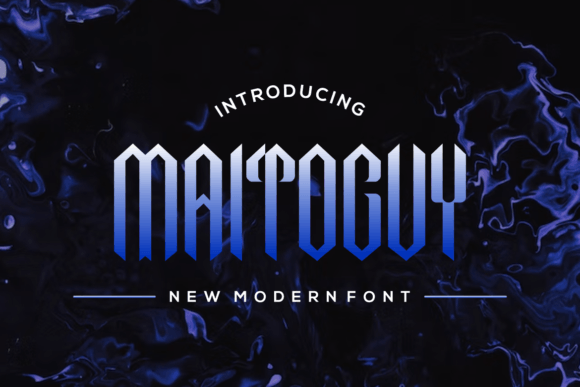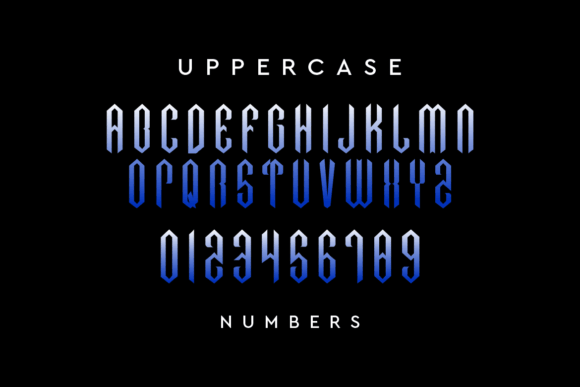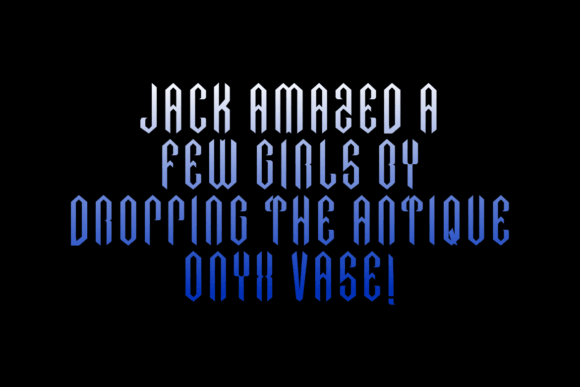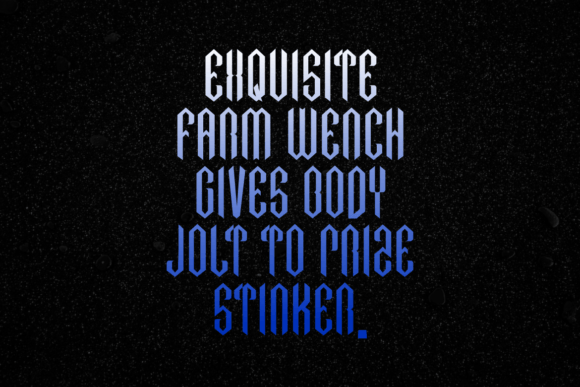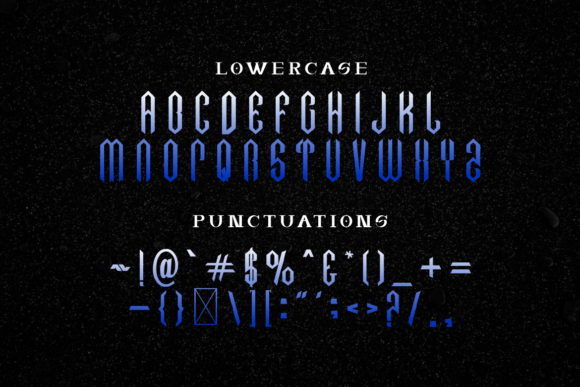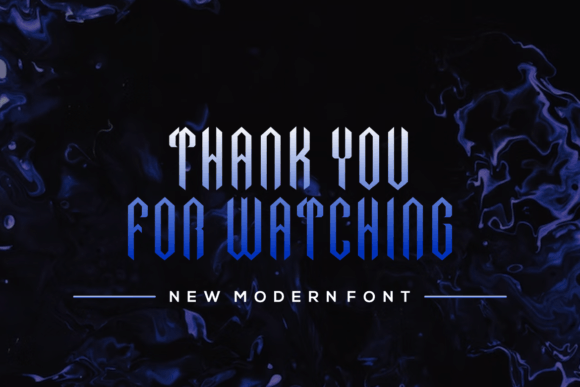
Introduction to Maitoguy Font
Maitoguy is a unique blackletter font that feels beautiful, classy, elegant, and modern.
This font is perfectly suited for a wide variety of projects, such as signature, stationery, logo, wedding, typography quotes, magazine or book covers, website headers, clothing, branding, packaging design, and more .
Key Features of Maitoguy Font
Why Choose Maitoguy Font?
Maitoguy Font offers exceptional quality and versatility, making it a valuable addition to your design toolkit. Whether you’re creating for personal projects or commercial use, Maitoguy Font delivers professional results.